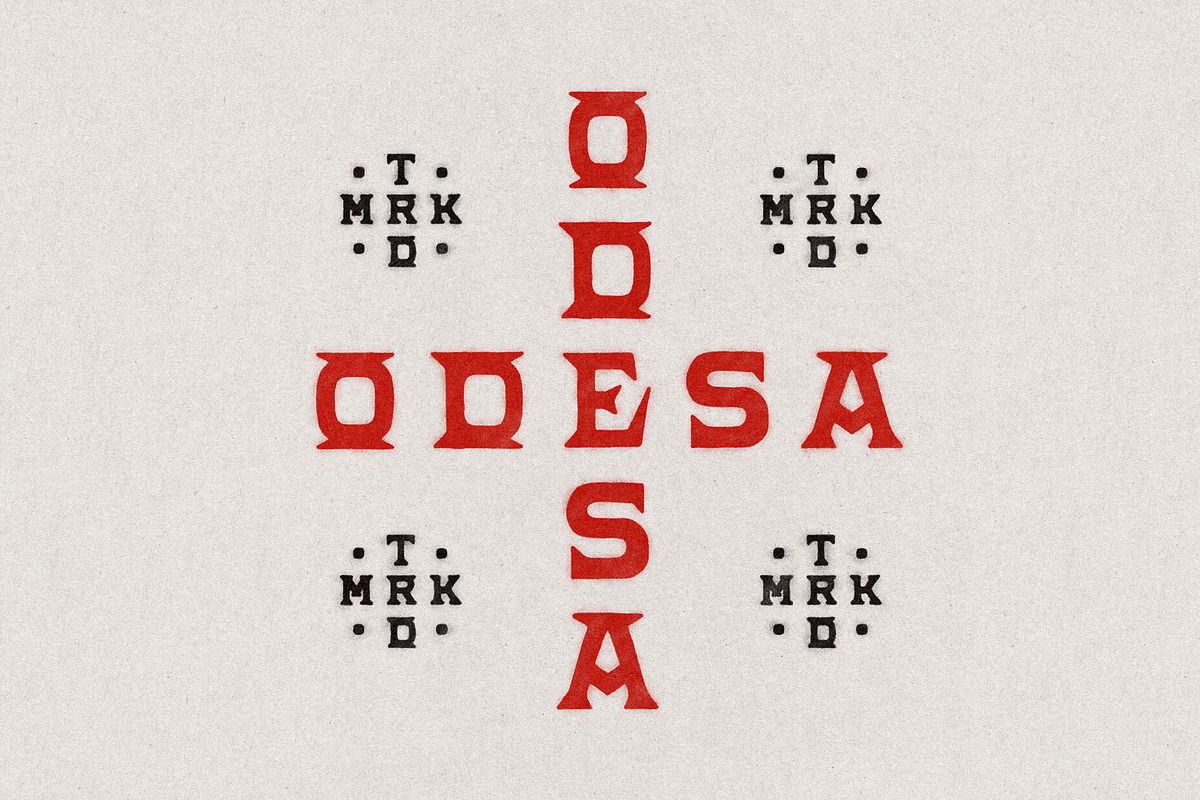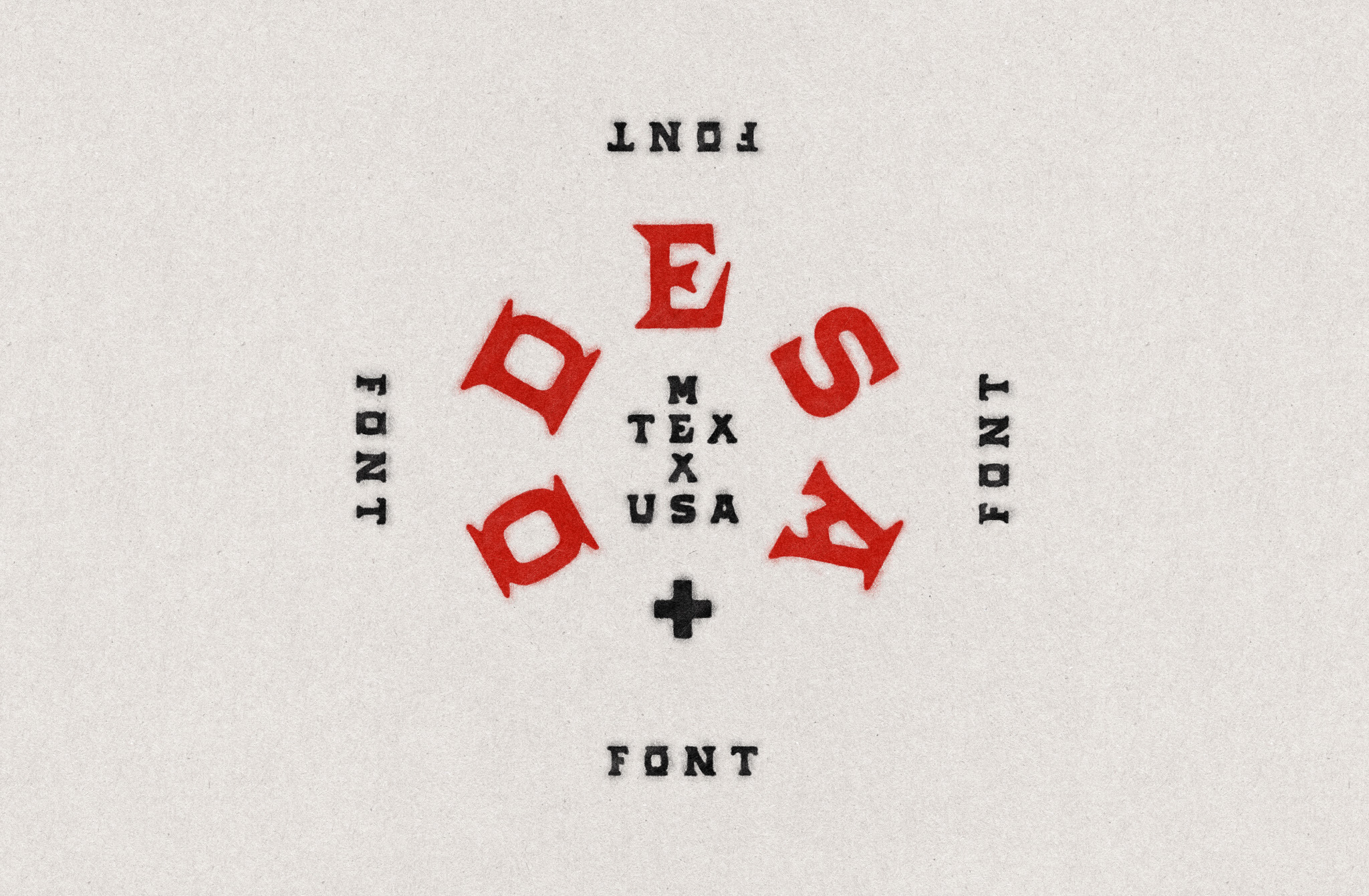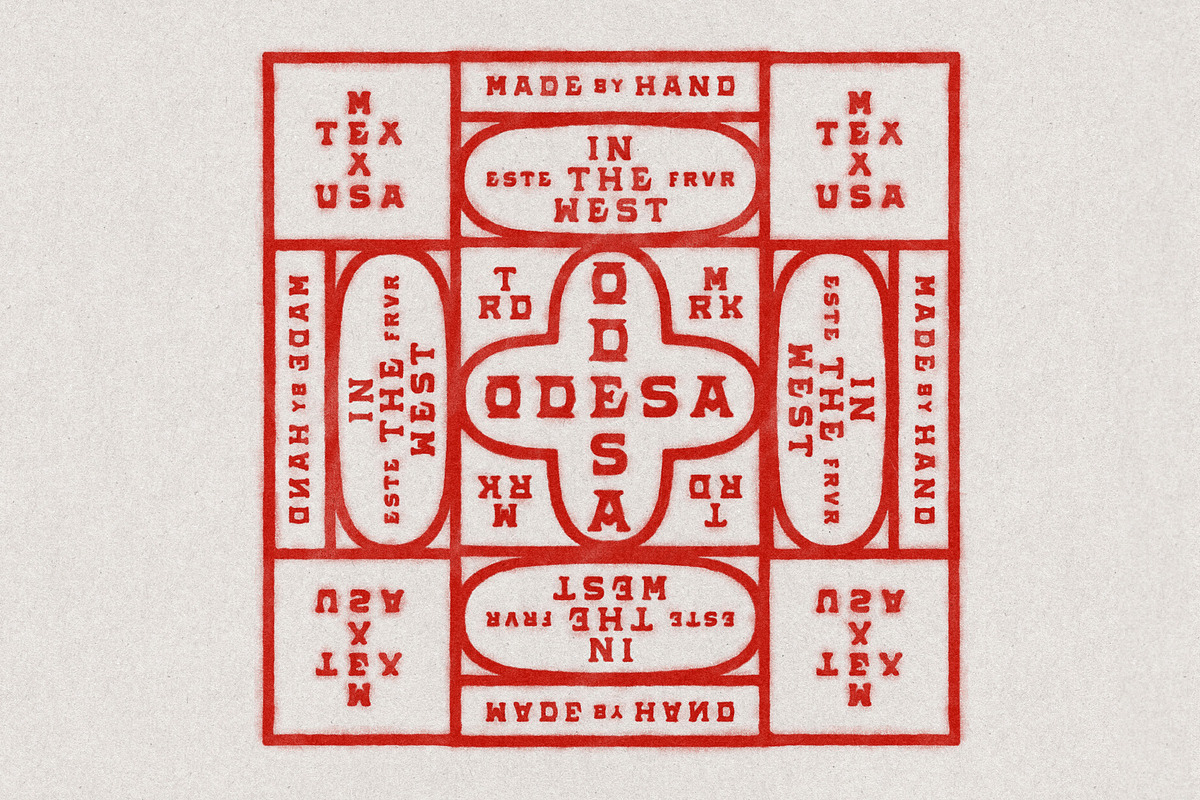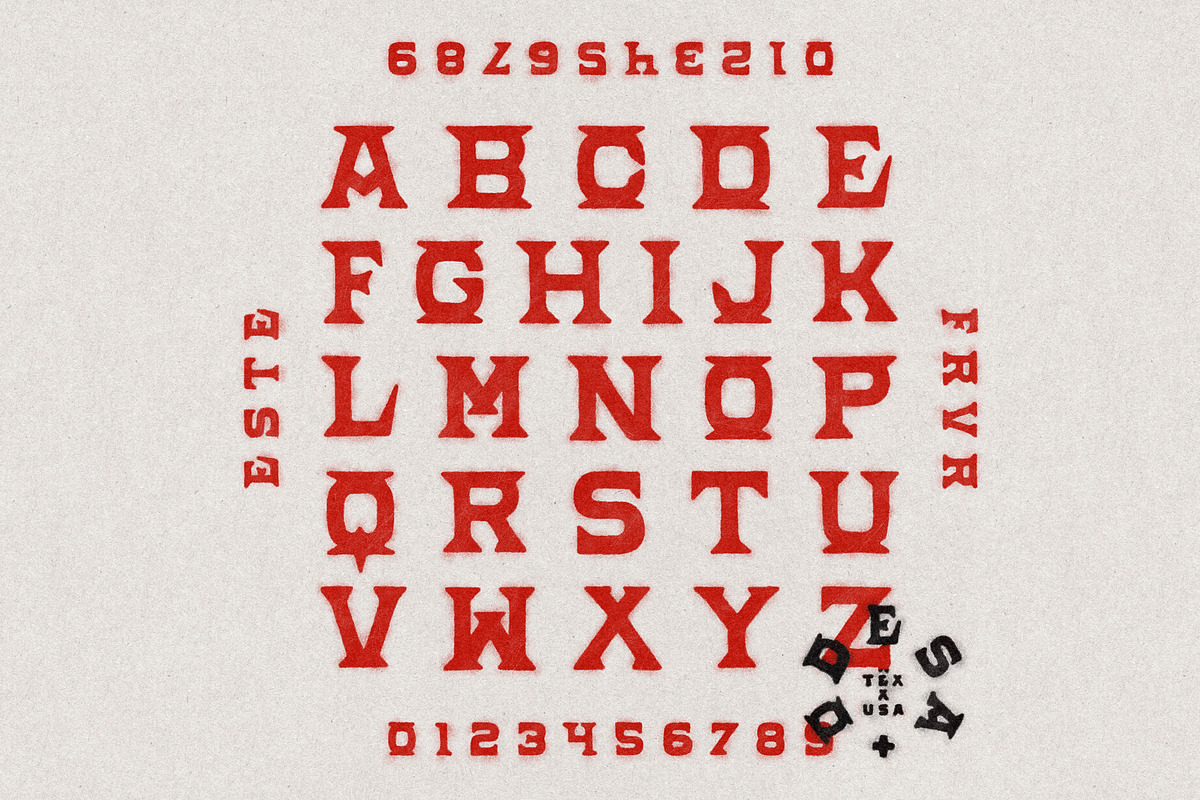
Odesa Font
A hand-crafted font inspired by the plain of Central Texas. Fully functional all-caps typeface including numbers, punctuation, and characters for several languages.